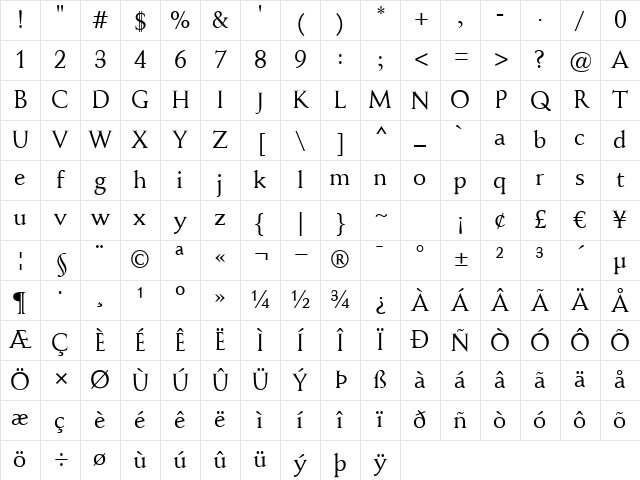
New Renaissance Regular Free Font
New Renaissance Regular
Design Context for New Renaissance
New Renaissance is a composed and adaptable typeface that performs quietly and consistently across a wide range of design contexts.